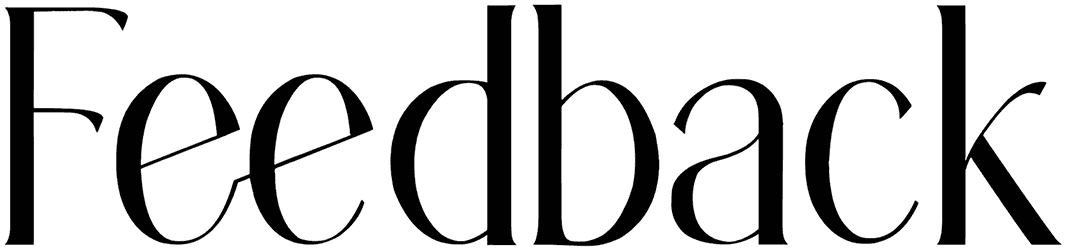
Feedback Font
Let us introduce a classic font with a new modern style to you. As a book cover font, Feedback consists of chic letters that could be harmonized with various titles. It doesn’t possess several numbers, but still would be an elegant illustration for your creative projects, such as business cards, logos, packaging, flyers, and the like.